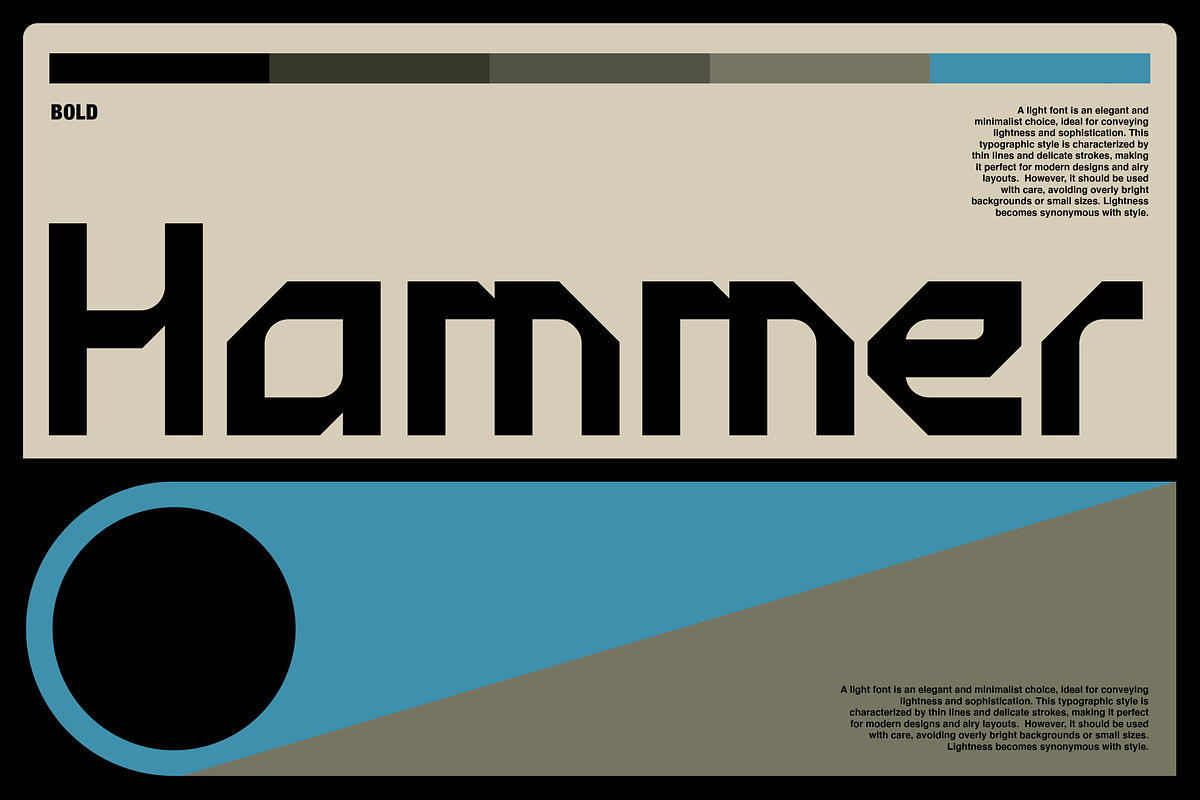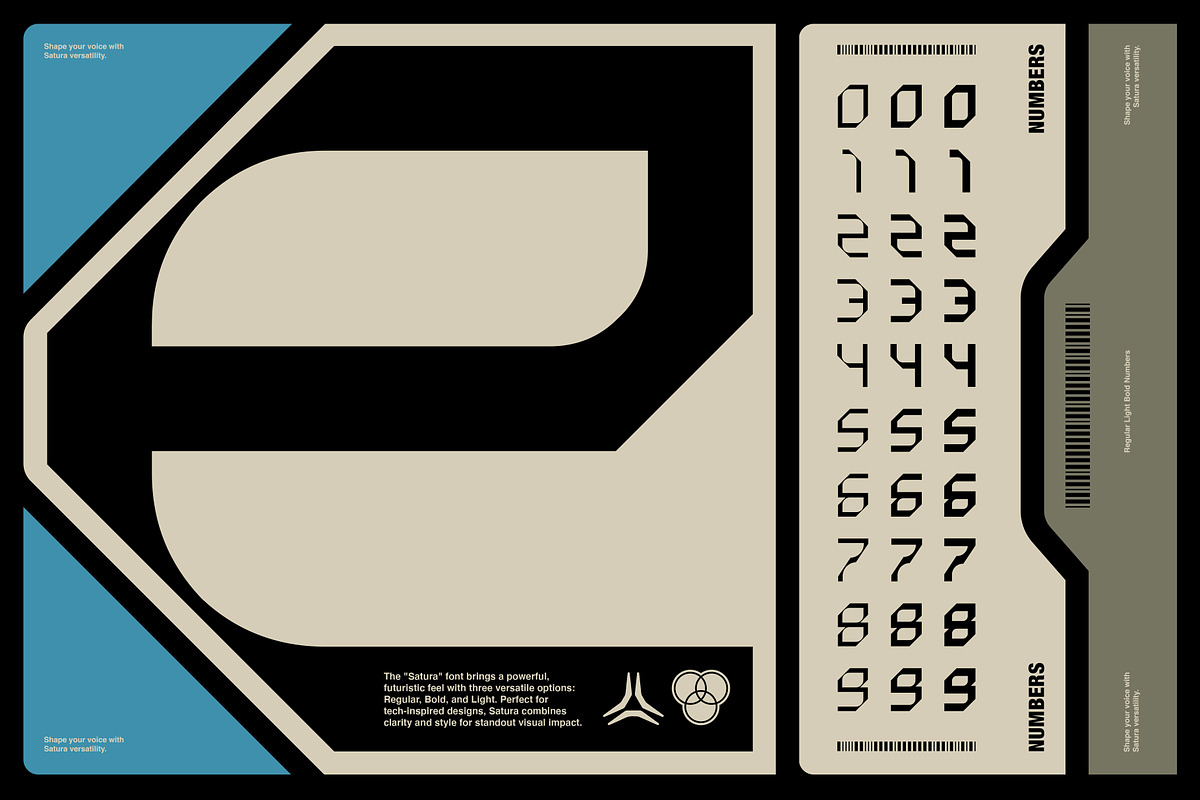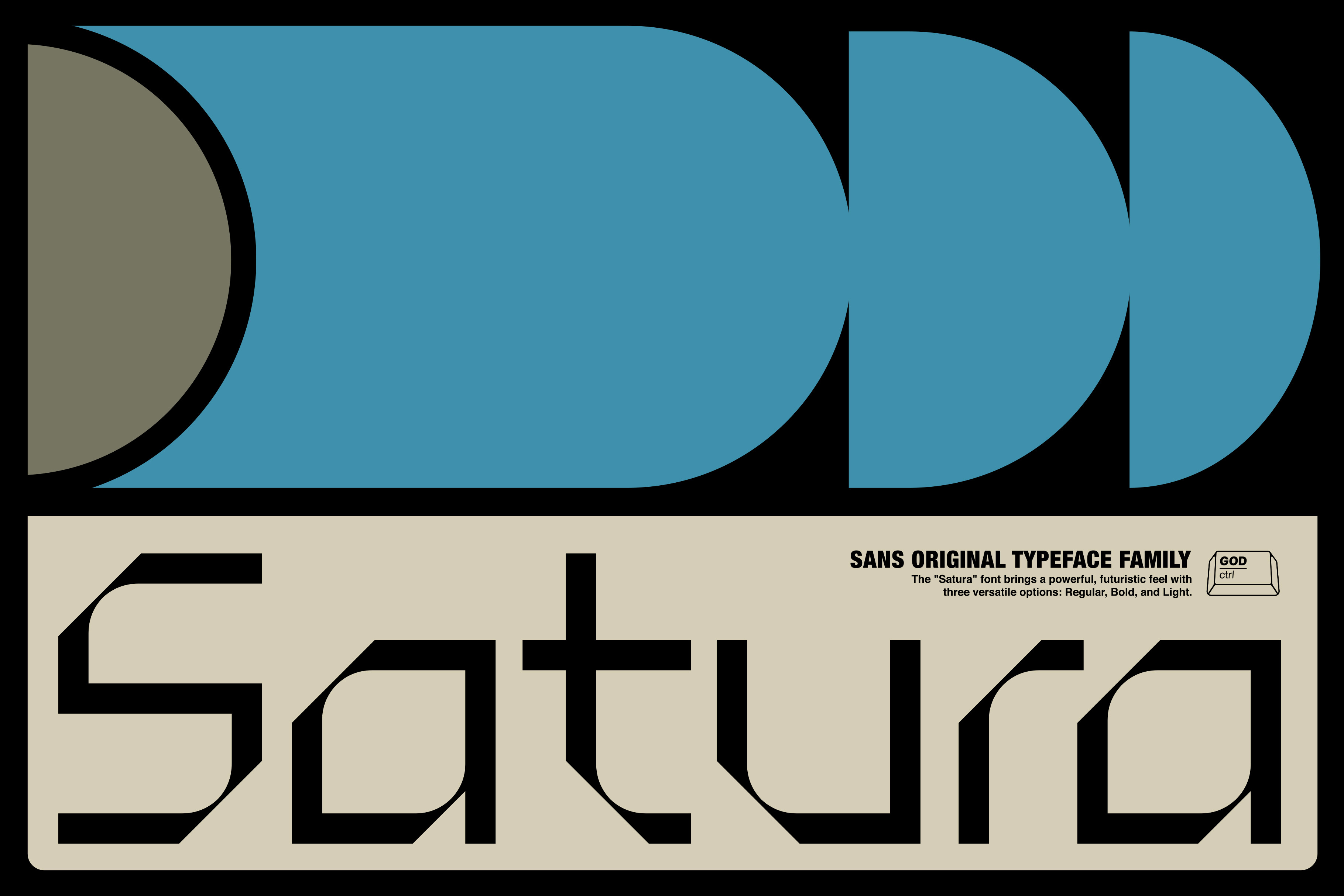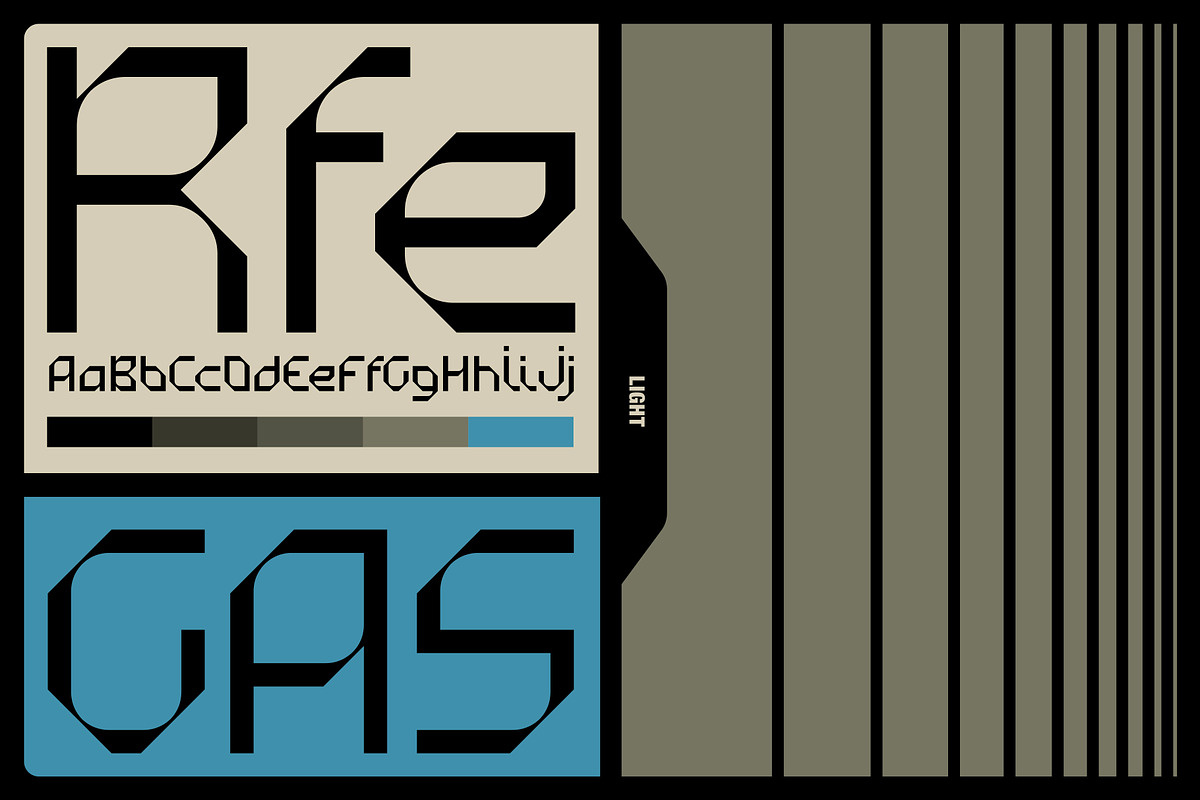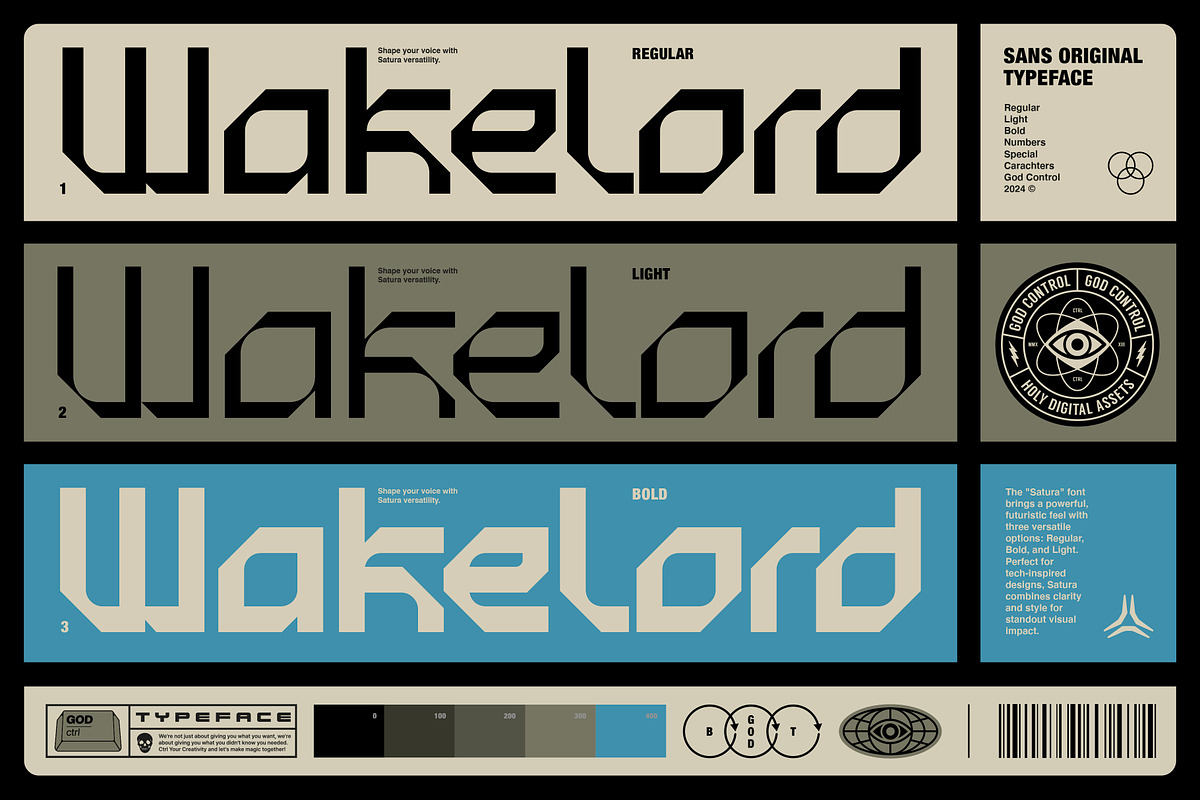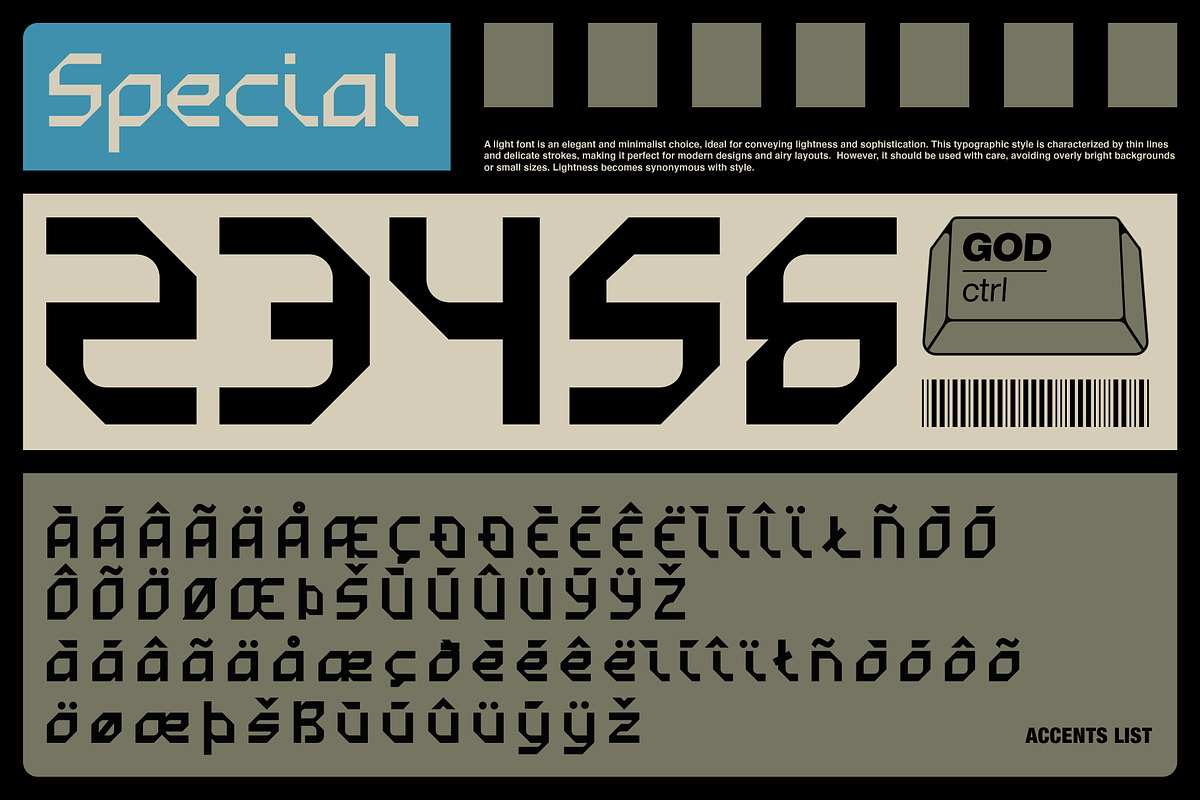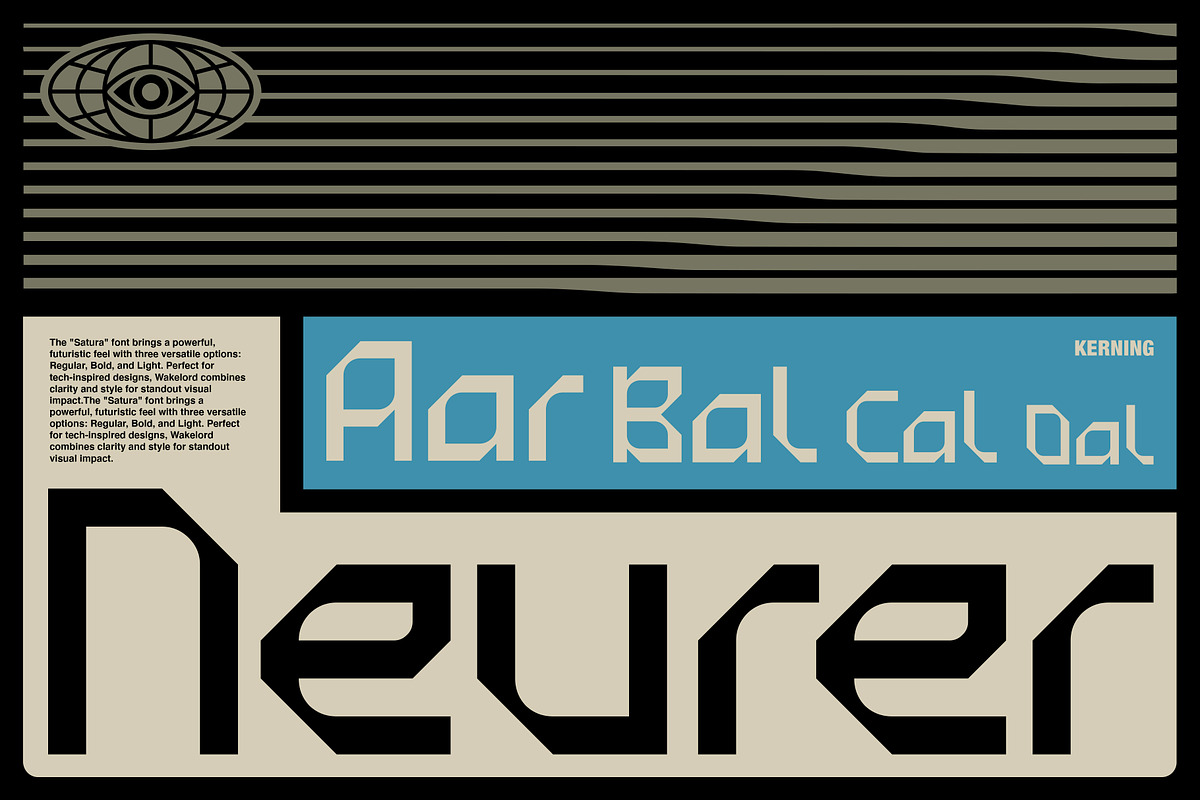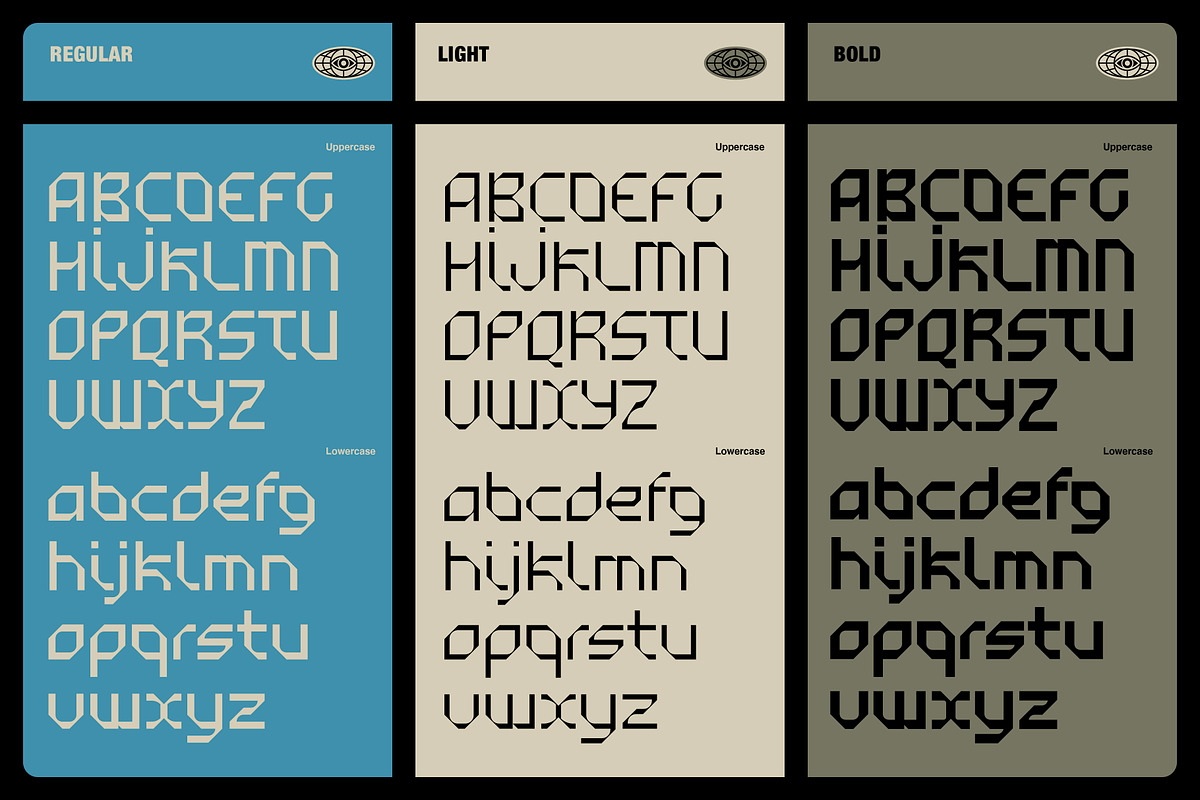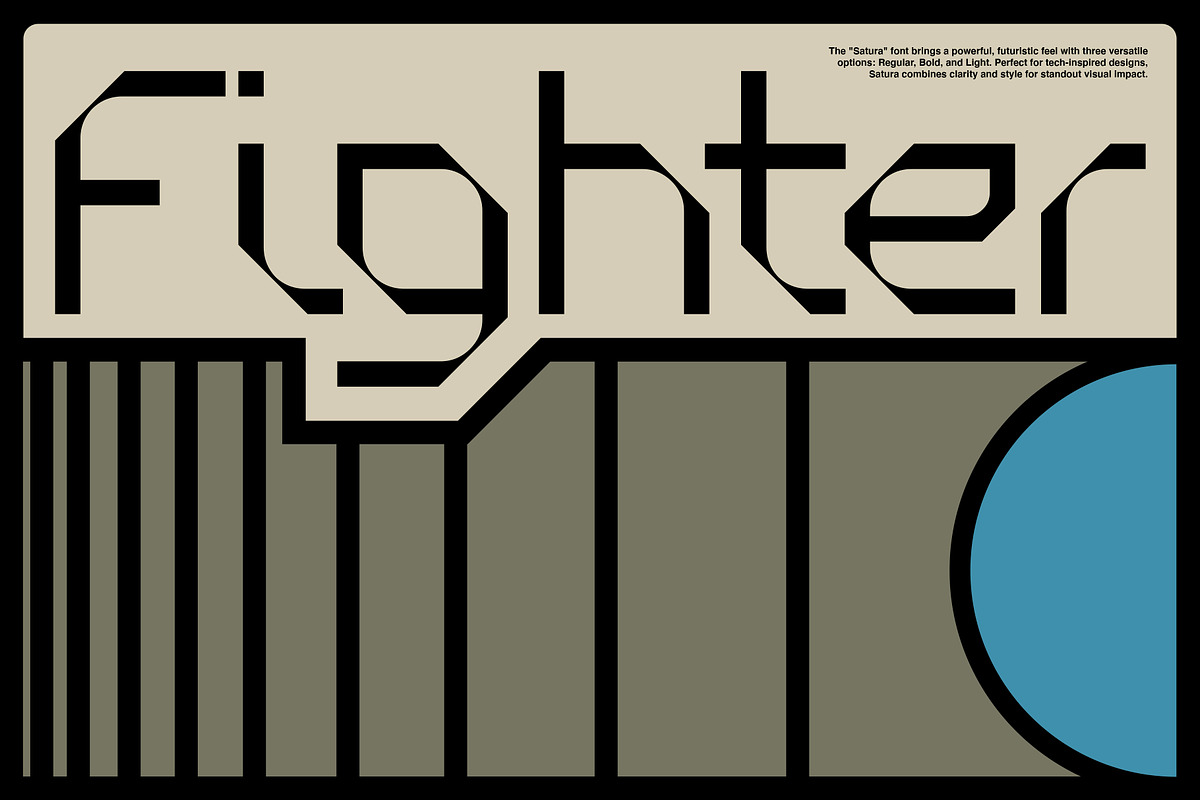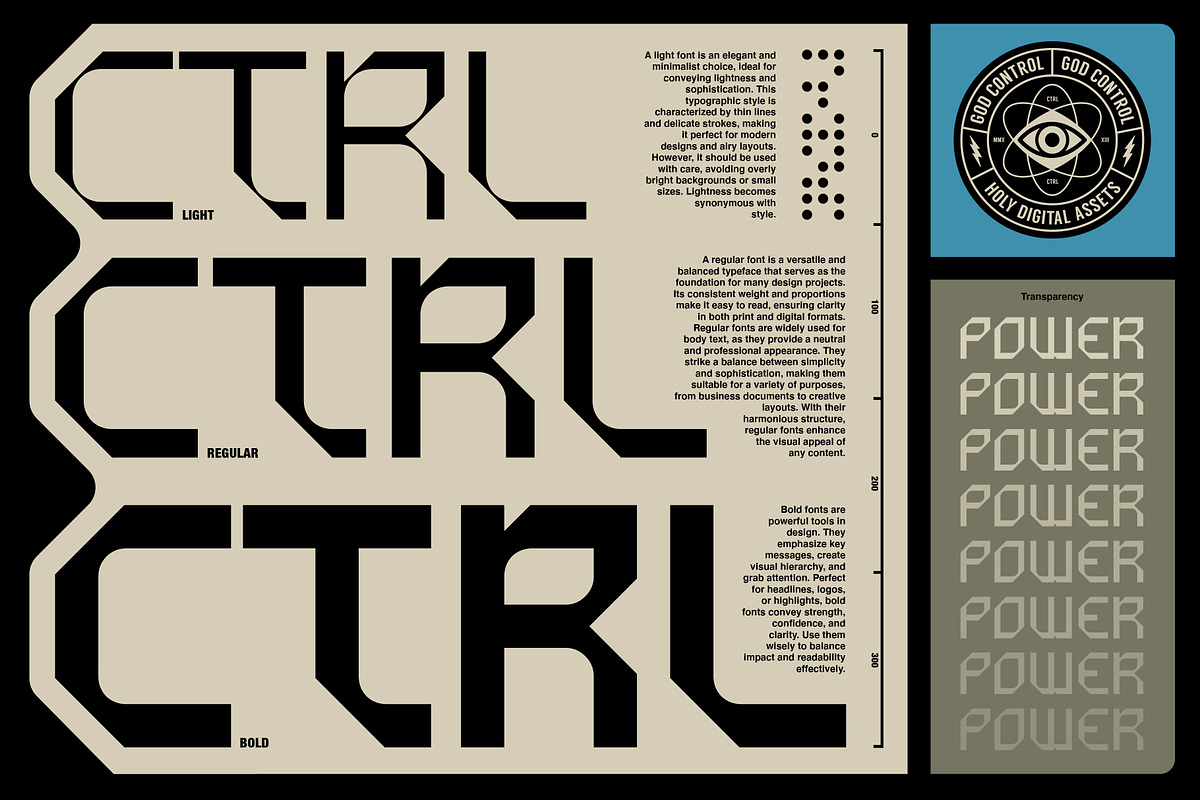
Satura Display Typeface Family
Welcome to the future — but make it rad and modern. Satura is the font your designs didn’t know they were begging for. Industrial, sharp, and just the right amount of edgy, this triple-weight powerhouse comes locked and loaded with everything you need
Each letter and number in Satura is crafted with precision: sharp, tech-inspired edges and smooth, industrial curves. With three weights —light, regular, and bold— Satura has versatility while still keeping that tech-savvy vibe, between sci-fi dystopias and sleek, modern design.
Whether you’re crafting a futuristic interface, a gritty sci-fi zine, or something no one’s dared to imagine yet, Satura shows up like the MVP every time. Got numbers? Special characters? You bet. This full-character set is locked and loaded for your next big idea, add it to your arsenal and watch the magic happen.
- 3 bold and futuristic display fonts
- Full special characters, punctuation and special
- 215 total characters for each font